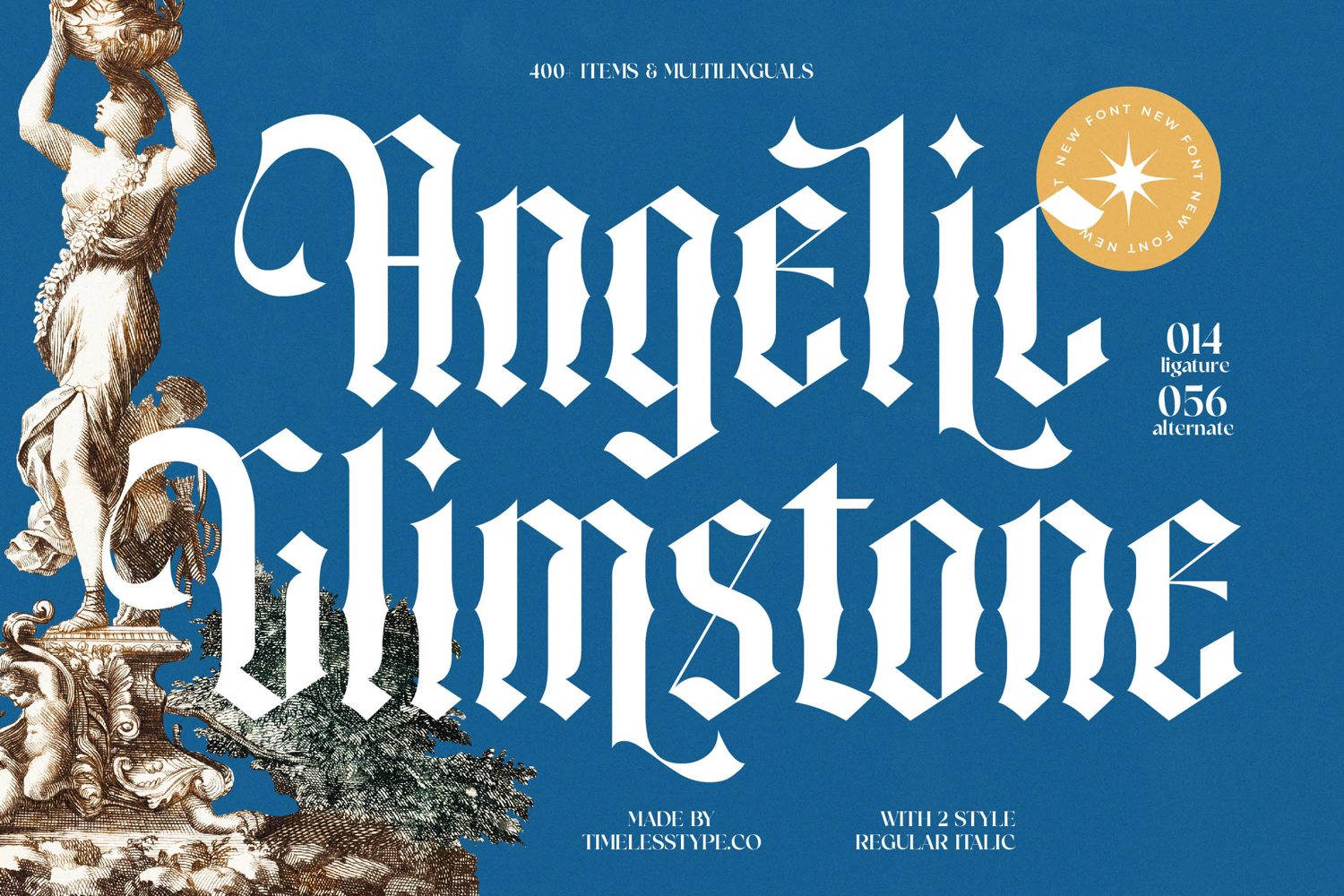
Angelic Glimstone - Blackletter Font
Font Angelic Glimstone - Blackletter Font Blackletter stands as a testament to timeless elegance, meticulously crafted to infuse your designs with unparalleled grandeur and mystique. This exquisite typeface marries the classic gravitas of traditional Blackletter with a modern sensibility, creating a truly unique and impactful aesthetic. Its characteristic high-contrast strokes, sharp terminals, and intricate details ensure every word commands attention, perfect for projects demanding a touch of sophistication and historical allure.
Unleash a spectrum of creative possibilities with the rich typographic features of Font Angelic Glimstone - Blackletter Font Blackletter. Boasting over 400 items, including 14 captivating ligatures and 56 diverse alternates, this font offers exceptional flexibility to personalize and perfect your text. These expansive stylistic sets allow for a truly bespoke feel, enabling designers to craft unique logotypes, compelling headlines, and distinctive body copy that truly stands out.